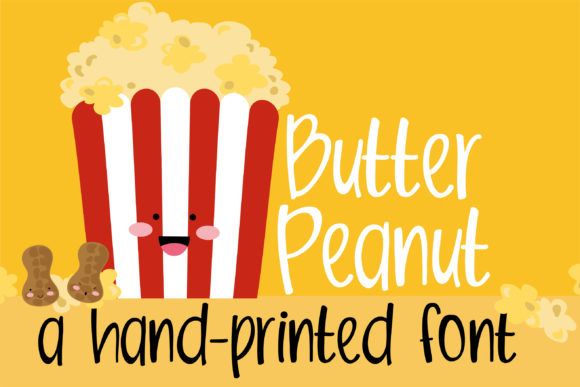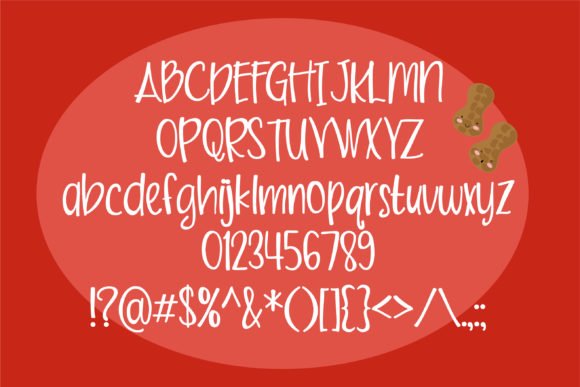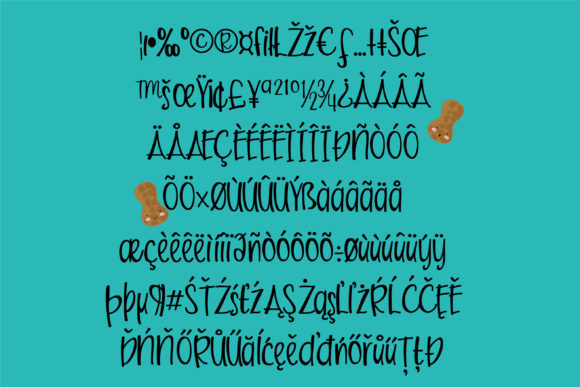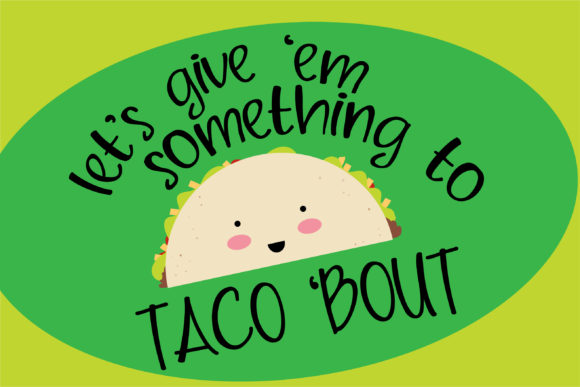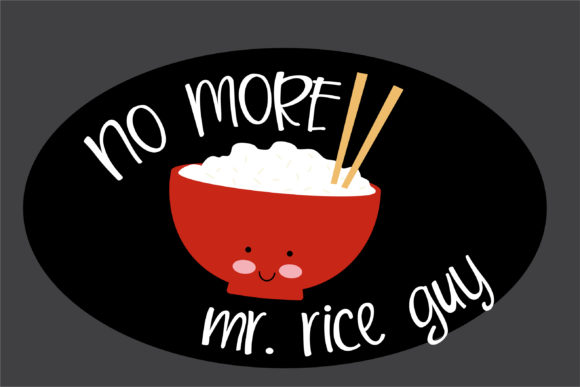
HomeScript FontsButter Peanut Font Script Fonts Butter Peanut Font FacebookXPinterestWhatsApp Butter Peanut Font Poster 2 Butter Peanut Font Poster 3 Butter Peanut Font Poster 4 Butter Peanut Font Poster 5 About Butter Peanut Font This hand-written font has a joyful quality to it. DOWNLOAD ON CREATIVE FABRICAThis font is sold and delivered by Creative Fabrica. Font Canyon may earn a commission if you buy through this link. People also explored Westlyfe Tracker Font Christmas Moment Font Ottoma Font Girlmind Font Way Back Home Font Golden Island Font Stay Kids Font Godfrey Font Brittania Font 342 0 TagsButter Peanut Font Previous articleEuphoria FontNext articleElf Craze Font LEAVE A REPLY Cancel reply Comment: Please enter your comment! Name:* Please enter your name here Email:* You have entered an incorrect email address! Please enter your email address here Website: Save my name, email, and website in this browser for the next time I comment. Personal Use Free Camping Personal Use Free Read more about this font Boronic Personal Use Free Read more about this font Hollow Personal Use Free Read more about this font Stone Cold Personal Use Free Read more about this font BLOG The 10 Best Handwriting Fonts to Add Personality to Your Designs 10 of the Best Handwriting Fonts for Adding Personality to Your Designs There will undoubtedly be no other better choice than handwriting fonts to give... Top 7 Google Fonts Alternatives for Faster and Privacy-Friendly Web Design (2025) To increase your work productivity, choose the most readable fonts. Free vs Paid Fonts: Why Investing in Premium Fonts Is Worth It